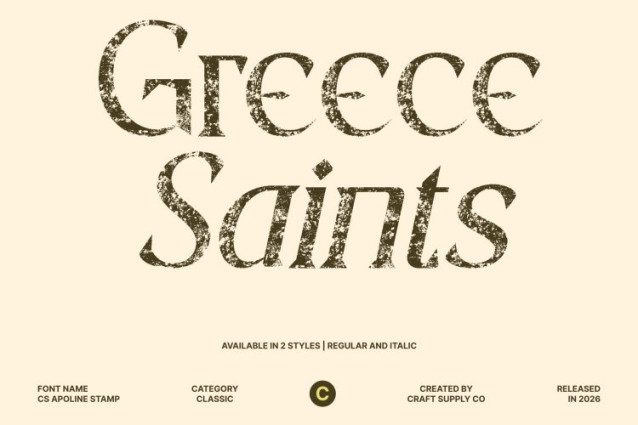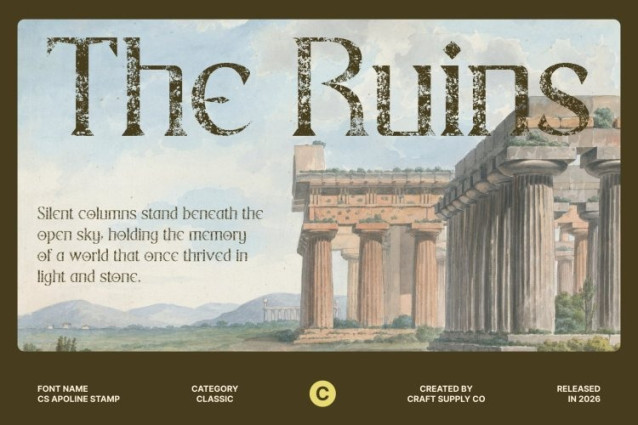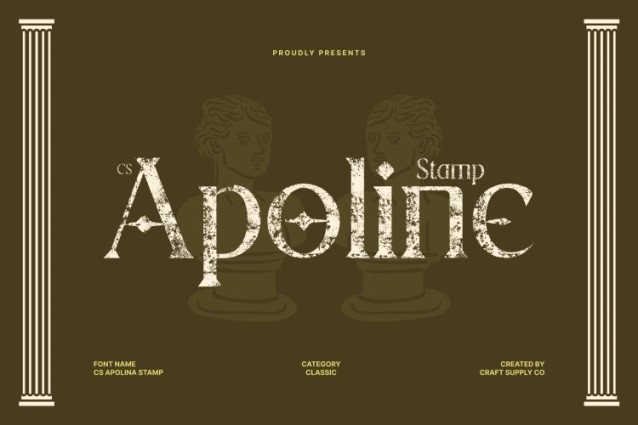
CS Apoline Stamp Font
CS Apoline Stamp Font This is a display serif font that beautifully merges classic elegance with contemporary sophistication. Its slender letterforms and delicate serif details create a graceful visual flow that feels timeless yet fashionable. The balanced proportions give the font a polished presence, making it refined without feeling rigid or outdated.
Vintage Stamp Texture with Artistic Character
The stamp effect introduces subtle distressed textures and worn details that give this font a vintage and old-design character. This artistic texture adds depth and warmth to the clean serif structure, evoking the charm of classic print techniques while enhancing the font’s visual personality and authenticity.
Sophisticated and Versatile for Elegant Storytelling
Designed for refined storytelling, this font works beautifully in editorial layouts, fashion branding, luxury packaging, and visual identities. Its elegant structure ensures clarity and readability, while the textured finish adds emotional nuance making each word feel expressive, stylish, and thoughtfully crafted.
Perfect for Modern Luxury with a Timeless Touch
Ideal for designers seeking a graceful balance between tradition and modern appeal, this font elevates projects with its soft confidence and artistic depth. Whether used in magazine headlines, boutique branding, or premium visuals, this font delivers a sophisticated typographic voice enriched by vintage charm and lasting elegance.